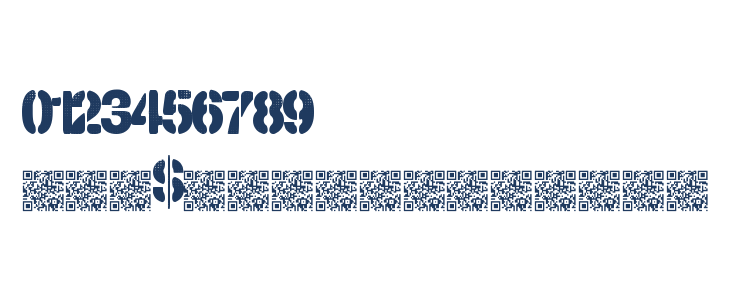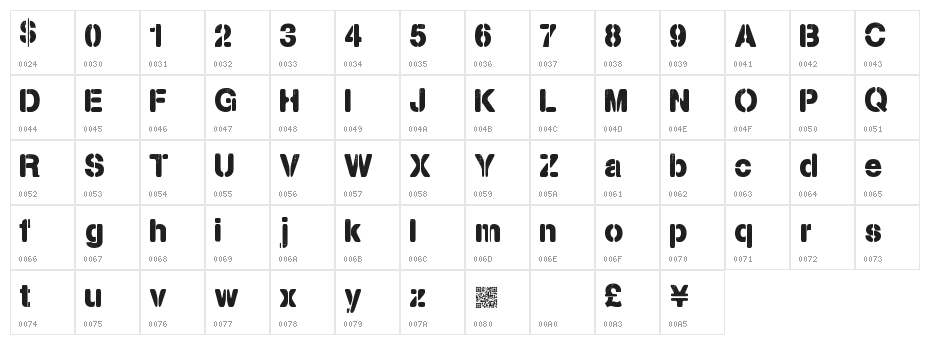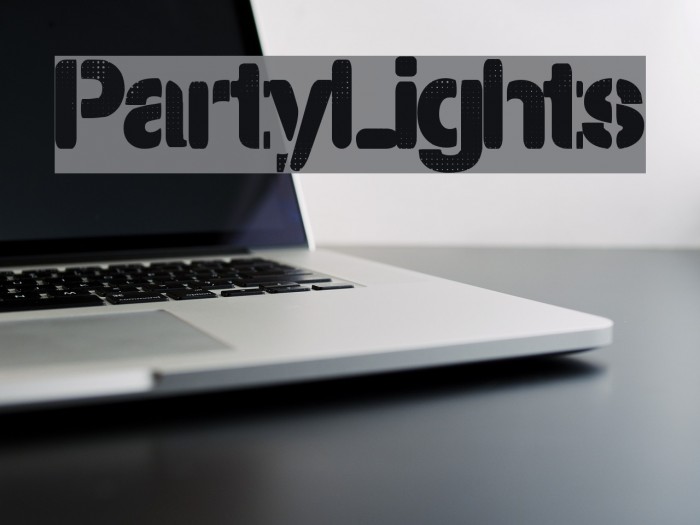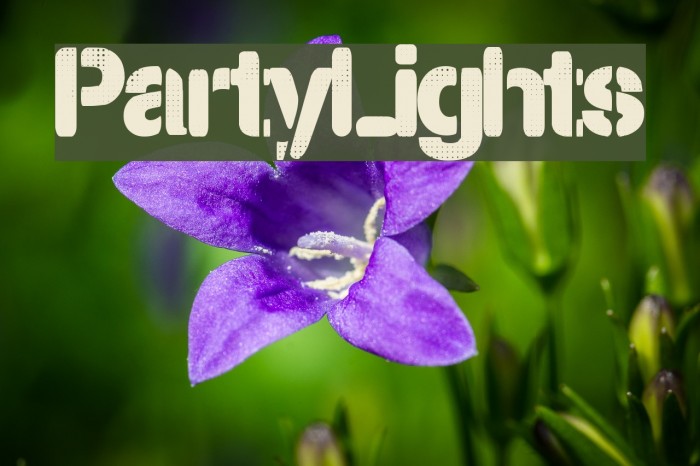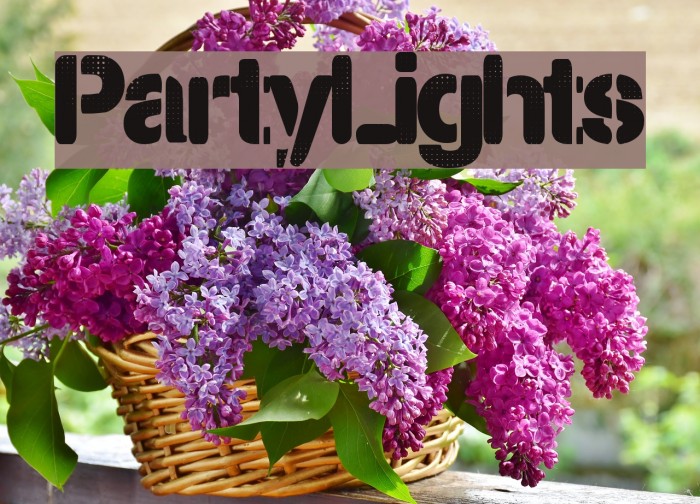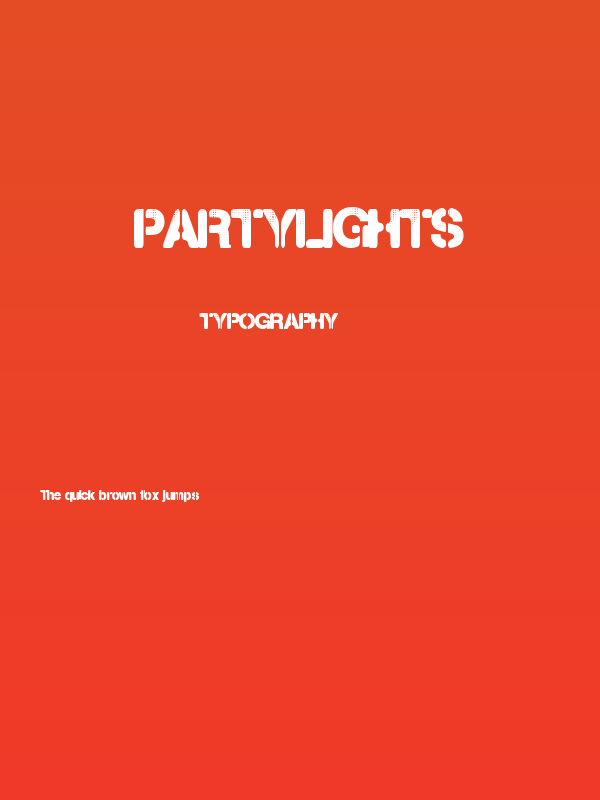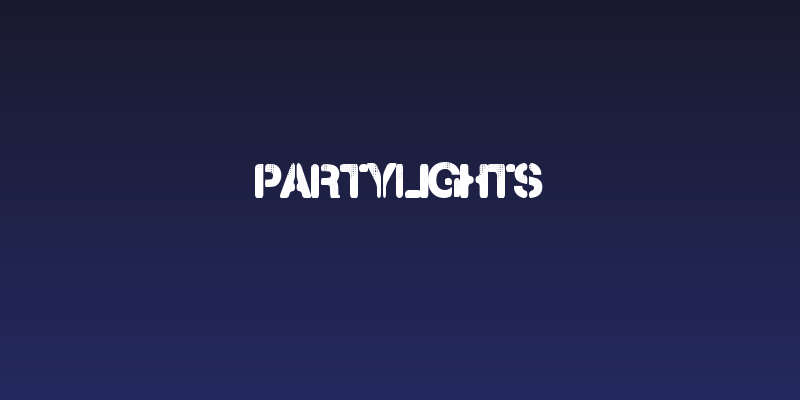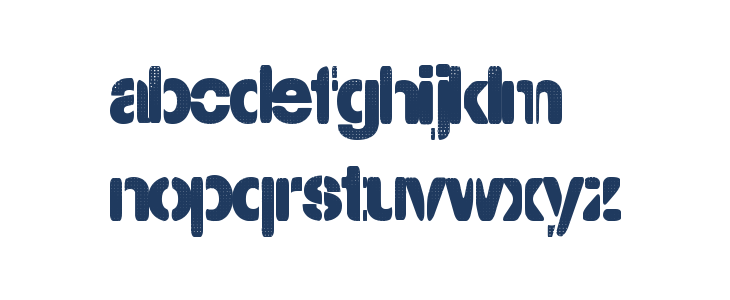
PartyLights Font
PartyLights Description
This font features a bold, playful design with a unique dotted texture that gives it a festive and lively appearance. The characters are rounded and robust, with a consistent thickness throughout, creating a sense of uniformity and balance. The uppercase and lowercase letters maintain a similar style, enhancing readability while adding a touch of whimsy. The numbers and special characters follow the same design principles, making them cohesive with the alphabet. This font's distinctive style makes it ideal for eye-catching designs that require a fun and energetic vibe.